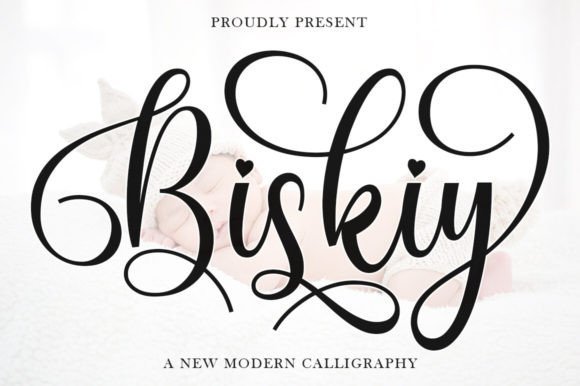
Biskiy Font: A Romantic and Sweet Calligraphy Typeface
In the world of typography, few fonts manage to capture the essence of romance and sweetness as effectively as Biskiy Font. This beautiful calligraphy typeface has been designed to bring a touch of elegance and whimsy to any design project, making it a popular choice among graphic designers, artists, and crafty enthusiasts. In this article, we’ll take a closer look at Biskiy Font, its unique features, and what makes it an excellent addition to your typography collection.
What is Biskiy Font?
Biskiy Font is a romantic and sweet calligraphy typeface characterized by its flowing, cursive lines and elegant swashes. The font’s characters appear to dance along the baseline, giving it a lively, yet refined feel. Biskiy Font is perfect for a variety of design projects, including wedding invitations, greeting cards, posters, and social media graphics.
Key Features of Biskiy Font
- Romantic and Sweet Design: Biskiy Font boasts a beautiful, cursive design that’s perfect for creating romantic and sweet-themed designs.
- Elegant Swashes: The font features elegant swashes that add a touch of sophistication to your designs.
- Casual yet Elegant: Biskiy Font strikes the perfect balance between casual and elegant, making it suitable for a wide range of design projects.
What Makes Biskiy Font Special?
Biskiy Font’s unique design and features make it an excellent choice for designers and crafty enthusiasts. Here are a few reasons why Biskiy Font stands out:
- Unique Character Set: Biskiy Font has a distinctive character set that includes beautiful swashes and glyphs.
- Versatility: Biskiy Font can be used for a variety of design projects, from romantic and sweet-themed designs to more formal and elegant projects.
Biskiy Font in Graphic Design
Biskiy Font can add a touch of elegance and sophistication to any graphic design project. Here are a few ways you can use Biskiy Font in graphic design:
- Wedding Invitations: Use Biskiy Font to create beautiful and romantic wedding invitations.
- Greeting Cards: Create sweet and sentimental greeting cards with Biskiy Font.
- Posters and Flyers: Add a touch of elegance to your posters and flyers with Biskiy Font.
- Social Media Graphics: Use Biskiy Font to create eye-catching social media graphics.
Tips and Tricks for Using Biskiy Font
Here are a few tips and tricks to help you get the most out of Biskiy Font:
- Experiment with Different Sizes and Colors: Try out different sizes and colors to see what works best for your design.
- Combine with Other Fonts: Pair Biskiy Font with other fonts to create a unique and interesting design.
- Use the Swashes and Glyphs: Take advantage of the font’s swashes and glyphs to add a touch of elegance to your design.
Biskiy Font is a beautiful and elegant calligraphy typeface that’s perfect for adding a touch of romance and sweetness to your design projects. With its PUA encoding, elegant swashes, and casual yet elegant design, Biskiy Font is an excellent choice for graphic designers, artists, and crafty enthusiasts. Whether you’re working on a wedding invitation, greeting card, or social media graphic, Biskiy Font is sure to impress.
- What is Biskiy Font? Biskiy Font is a romantic and sweet calligraphy typeface with characters that dance along the baseline.